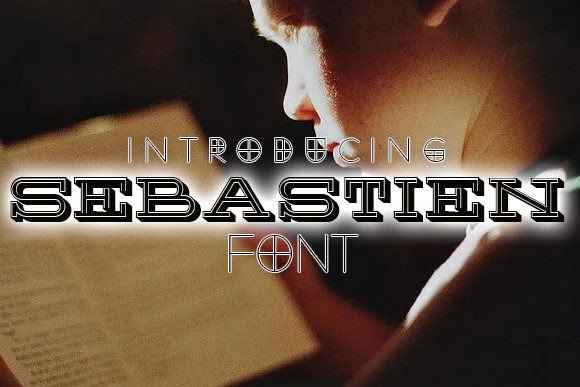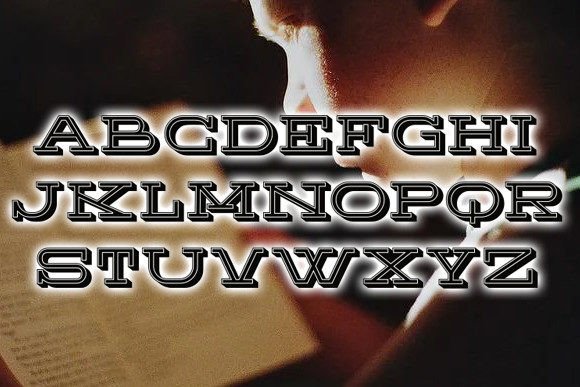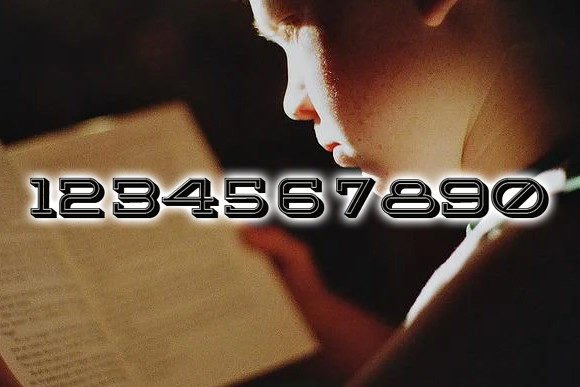
Sebastien: An Awesome 3D Slab Serif Typeface
Sebastien is an awesome slab serif typeface featuring a 3D design with vintage and solemn characteristics. This versatile font works perfectly for various design applications, from flyers and banners to posters, covers, and t-shirts.
Key Features of Sebastien
- 3D Design: Offers depth and dimensional appeal.
- Vintage Style: Brings classic, timeless elements.
- Solemn Character: Features a serious, distinguished appearance.
- Versatile Application: Works well across multiple design formats.
Best Uses for Sebastien
Thanks to its unique characteristics, Sebastien works especially well for:
- Eye-catching flyers
- Striking banners
- Impactful posters
- Distinctive covers
- T-shirt designs
- Display typography
- Marketing materials
When using Sebastien in your designs, keep these tips in mind:
- Try it for headlines or display text to showcase its 3D features.
- Use different sizes to highlight its vintage characteristics.
- Let its solemn appearance add gravitas to designs.
- Take advantage of its versatility across different media.
To sum up, Sebastien is an excellent choice for designers seeking an awesome 3D slab serif font with vintage appeal. Its solemn appearance makes it perfect for projects that need to make a strong impression. Whether you’re creating flyers, designing banners, or developing t-shirt graphics, Sebastien offers the perfect blend of depth and character.
Furthermore, Sebastien’s distinctive design allows it to shine in contexts where visual impact is key. For instance, from posters to covers, this font can elevate your projects with its dimensional style. Also, its vintage yet readable appearance works particularly well in designs that aim to make a lasting impression.
In conclusion, Sebastien truly captures the essence of 3D typography in slab serif design. Its versatility across different applications shows how well it can serve various creative needs. Therefore, for those wanting to add a touch of dimensional sophistication to their work, Sebastien can enhance any design with its unique style. Ultimately, it’s perfect for designers aiming to make an awesome, vintage impact across a wide range of creative projects.